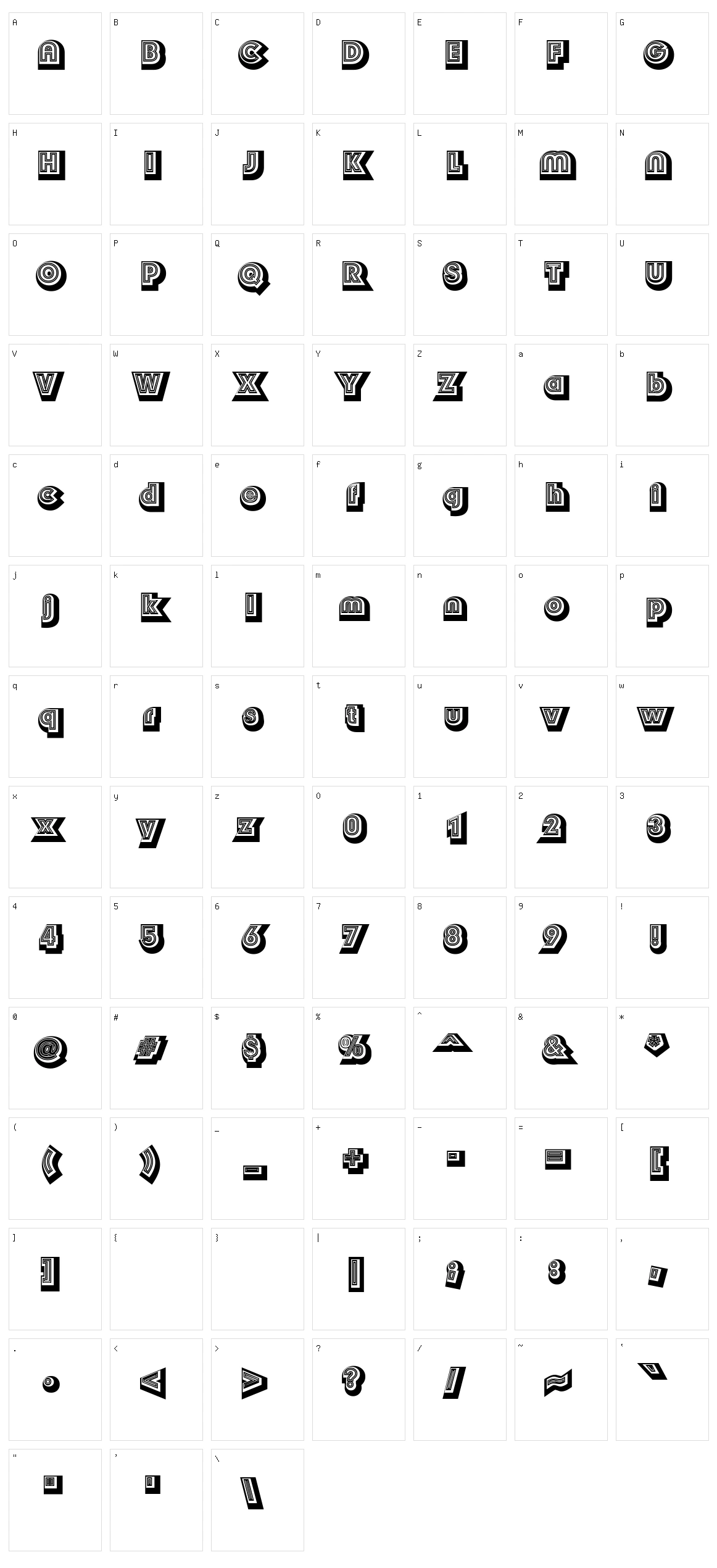
The free font Soul Mama is carefully designed by Typodermic Fonts, showcasing a thoughtful balance of creativity and usability and falls under the Groovy font style. When you download the ZIP file, it contains only 81.42 KB of font files, making it lightweight and quick to download. Please review the license details below to understand permitted usage and distribution rights. If license information is not available, we recommend using this font for personal projects only or contacting the author directly for commercial usage permissions.